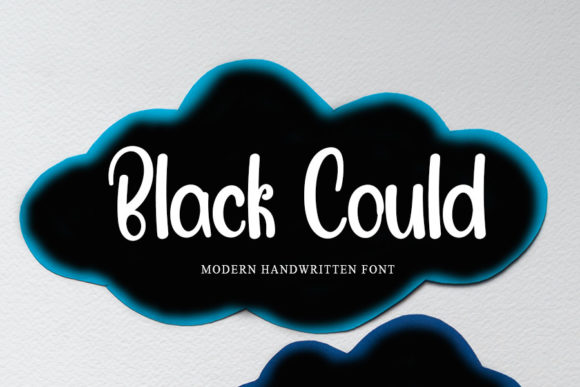
The Quest for the Perfect Font: Discovering Black Cloud
Ah, the eternal struggle of finding the perfect font for our design projects. I still remember the time I was working on a branding project for a luxury client, and I just couldn’t seem to find a font that exuded the right amount of sophistication and elegance. The client was specific about wanting a font that was both modern and timeless, and I was determined to deliver. That’s when I stumbled upon Black Cloud, a stylish handwritten font that has since become a staple in my design toolkit.
First Impressions: A Love Affair with Black Cloud
Black Cloud is a beautifully crafted font that embodies the perfect blend of modernity and classic elegance. Its contemporary atmosphere and impeccable form make it an excellent choice for designers, crafters, and creative hobbyists alike. Here’s what I love about Black Cloud:
- ✨ Balanced and varied: The font’s balanced and varied letterforms make it perfect for use in a wide range of design projects, from branding and advertising to packaging and digital media.
- ✅ Elegant and sophisticated: Black Cloud’s elegant and sophisticated design makes it ideal for luxury brands, high-end products, and premium services.
- 💫 Timeless classic: The font’s classic calligraphy-inspired design ensures that it will remain relevant and stylish for years to come.
The Not-So-Perfect: A Few Quirks and Limitations
While Black Cloud is an exceptional font, it’s not without its quirks and limitations. Here are a few things to keep in mind:
- 🤔 Limited use in body text: Due to its elegant and sophisticated design, Black Cloud may not be the best choice for body text, especially in larger blocks of text.
- ⚠️ Some glyphs may require manual adjustment: Depending on the design project, some glyphs may require manual adjustment to ensure optimal spacing and alignment.
Black Cloud was inspired by the timeless classic calligraphy of the past. Its designer sought to create a font that was both modern and elegant, with a focus on impeccable form and balance. The result is a font that is both stylish and sophisticated, perfect for a wide range of design projects.
| What is Black Cloud font? | Black Cloud is a stylish handwritten font with a contemporary atmosphere and impeccable form, inspired by timeless classic calligraphy. |
| What design projects is Black Cloud suitable for? | Black Cloud is suitable for a wide range of design projects, including branding, advertising, packaging, and digital media. |
| Can I use Black Cloud for body text? | While Black Cloud is an elegant and sophisticated font, it may not be the best choice for body text, especially in larger blocks of text. |
| Does Black Cloud support OpenType features? | Yes, Black Cloud supports OpenType features, glyphs, and stylistic alternates, making it a versatile font for a wide range of design projects. |